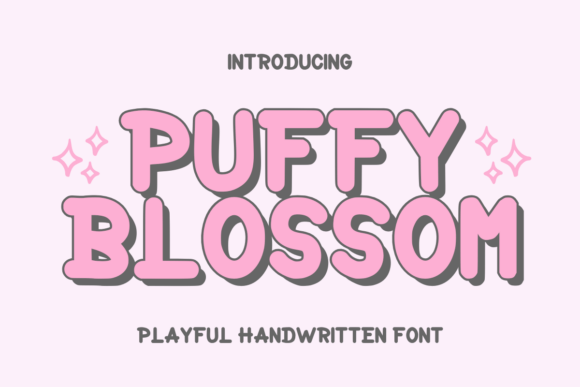
Puffy Blossom Font: The Ultimate Choice for Cute and Playful Designs
Are you looking for a font that can add a touch of cuteness and charm to your designs? Look no further than the Puffy Blossom font! This delightfully chunky handwritten font is bursting with personality and is perfect for a variety of projects, from children’s designs to kawaii branding and fun stickers.
What is Puffy Blossom Font?
Puffy Blossom is a unique and playful font that features bubbly, bold strokes and a playful shadow effect. This combination gives the font a cartoon-like feel that’s sure to bring a smile to anyone’s face. The font is designed to be highly legible and versatile, making it perfect for use in a wide range of projects.
Characteristics of Puffy Blossom Font
So, what makes Puffy Blossom font so special? Here are just a few of its key characteristics:
- Chunky and handwritten: Puffy Blossom has a delightfully chunky and handwritten feel that’s perfect for adding a personal touch to your designs.
- Bubbly and bold strokes: The font features bold, bubbly strokes that give it a playful and energetic feel.
- Playful shadow effect: The font includes a playful shadow effect that adds depth and dimension to your designs.
- Cartoon-like feel: The combination of the font’s chunky strokes and playful shadow effect gives it a cartoon-like feel that’s perfect for children’s projects and kawaii branding.
Uses for Puffy Blossom Font
Puffy Blossom font is incredibly versatile and can be used in a wide range of projects, including:
- Children’s projects: The font’s playful and cartoon-like feel makes it perfect for use in children’s books, educational materials, and other kids’ projects.
- Kawaii branding: If you’re looking to create a brand that’s cute and playful, Puffy Blossom font is a great choice.
- Fun stickers: The font’s bold and bubbly strokes make it perfect for use in fun stickers and other craft projects.
- Cheerful social media graphics: Use Puffy Blossom font to add a touch of personality to your social media graphics and make them stand out.
Why Choose Puffy Blossom Font?
So, why should you choose Puffy Blossom font for your next project? Here are just a few reasons:
- Cute and playful: The font’s playful and cartoon-like feel makes it perfect for adding a touch of cuteness and charm to your designs.
- Highly legible: Despite its chunky and playful feel, Puffy Blossom font is highly legible and easy to read.
- Versatile: The font can be used in a wide range of projects, from children’s designs to kawaii branding and fun stickers.
Tips for Using Puffy Blossom Font
Here are a few tips for getting the most out of Puffy Blossom font:
- Use it in combination with other fonts: Puffy Blossom font pairs well with a variety of other fonts, so don’t be afraid to experiment with different combinations.
- Experiment with different colors: The font’s playful and cartoon-like feel makes it perfect for use with bright and bold colors.
- Use it to add personality to your designs: Puffy Blossom font is all about personality, so don’t be afraid to use it to add a touch of whimsy and fun to your designs.
In conclusion, Puffy Blossom font is a unique and playful font that’s perfect for adding a touch of cuteness and charm to your designs. Its chunky and handwritten feel, bubbly and bold strokes, and playful shadow effect make it a great choice for a wide range of projects, from children’s designs to kawaii branding and fun stickers. So why not give it a try and see how it can add a touch of personality to your next project?
- What is Puffy Blossom font? Puffy Blossom font is a delightfully chunky handwritten font bursting with cuteness and charm.
- What is Puffy Blossom font used for? Puffy Blossom font can be used in a wide range of projects, including children’s designs, kawaii branding, fun stickers, and cheerful social media graphics.